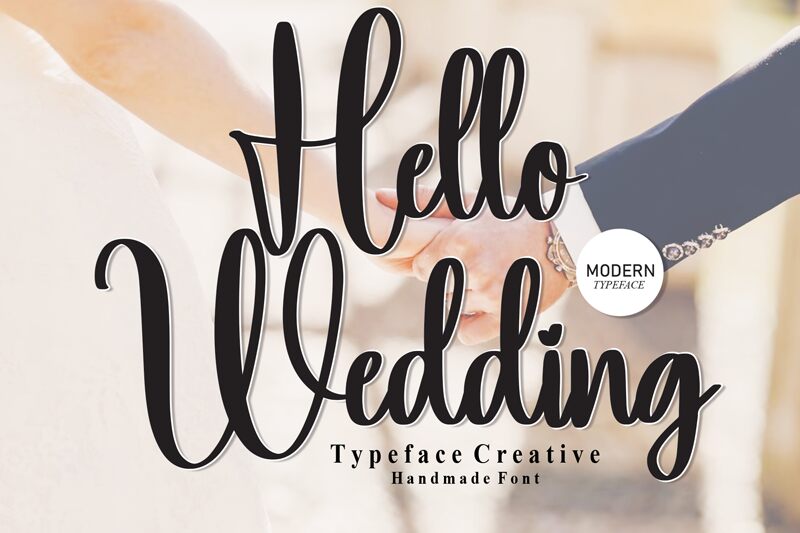
Hello Wedding
The "Hello Wedding" font, crafted by the talented Scratchones, exudes a captivating handwritten charm. Featuring a delicate, condensed stroke, this font effortlessly captures the essence of elegance and sophistication. Its fluid, organic lines and graceful curves evoke a sense of effortless sophistication, making it a visually appealing choice for a wide range of design projects.
This versatile font lends itself particularly well to branding and wedding-related designs, where its romantic and feminine aesthetic can truly shine. Whether adorning invitations, signage, or promotional materials, the "Hello Wedding" font has the power to elevate any project, infusing it with a touch of timeless beauty and refined elegance.